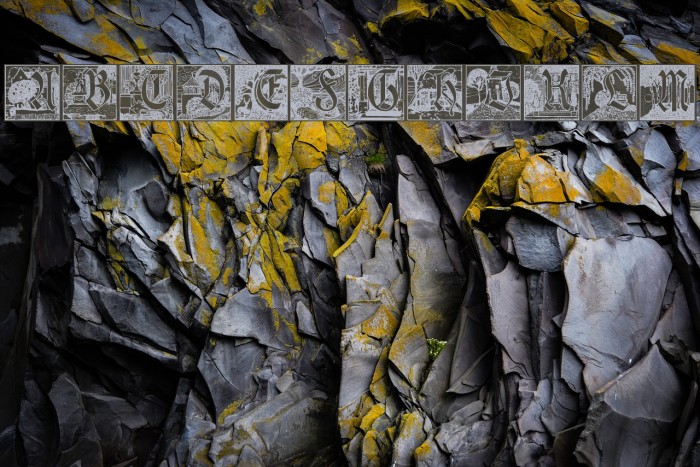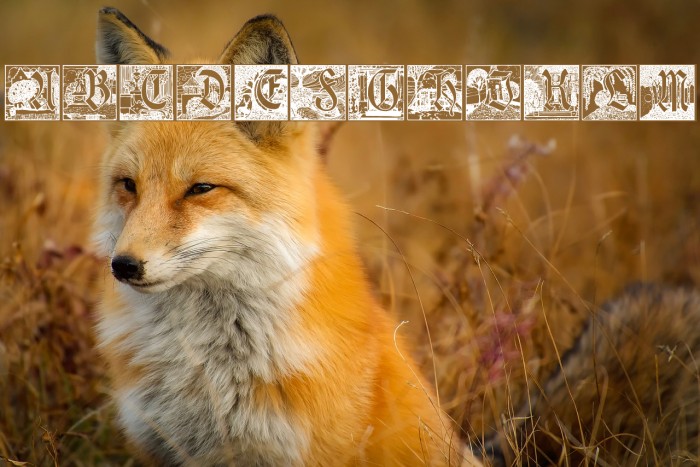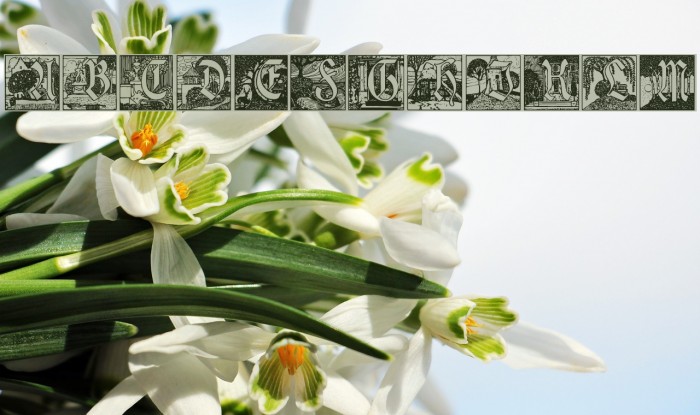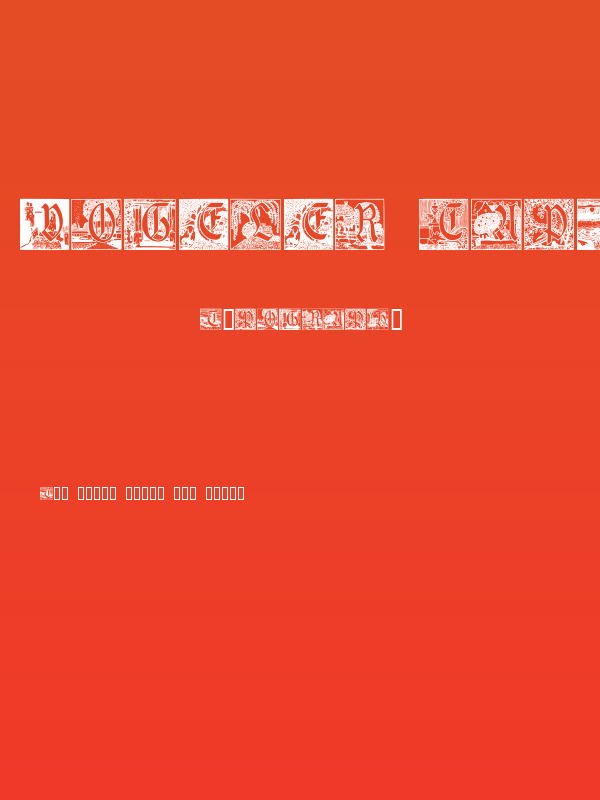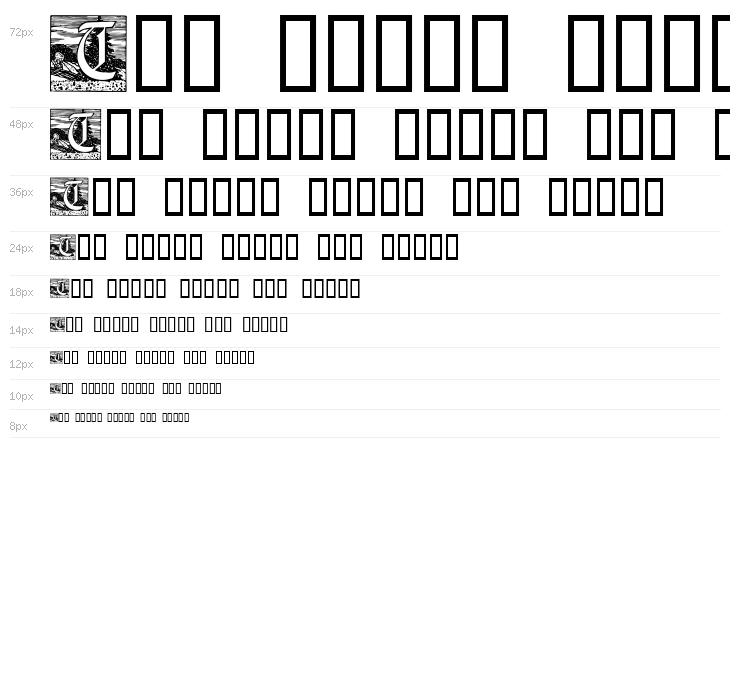
Vogeler Caps Font
Vogeler Caps Description
This font is a highly decorative and ornate style, reminiscent of medieval illuminated manuscripts. Each letter is encased in a square frame, featuring intricate illustrations and embellishments that give it a rich, historical feel. The characters are bold and complex, with a high level of detail that makes them stand out as individual works of art. The style is distinctly Gothic, with sharp, angular lines and elaborate serifs that add to its dramatic appearance. This font is best suited for projects that require a touch of antiquity and elegance, such as historical publications, themed event invitations, or artistic posters.
| Overall Style | Vintage |
| Proposed Projects | Ideal for historical publications, themed event invitations, or artistic posters. |